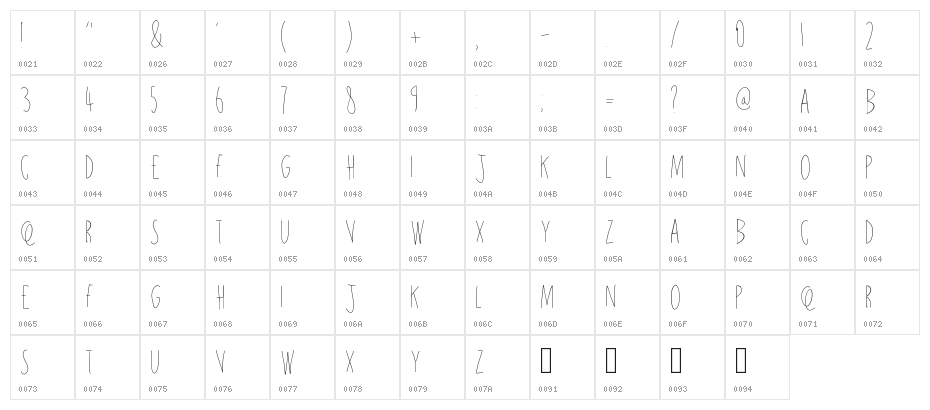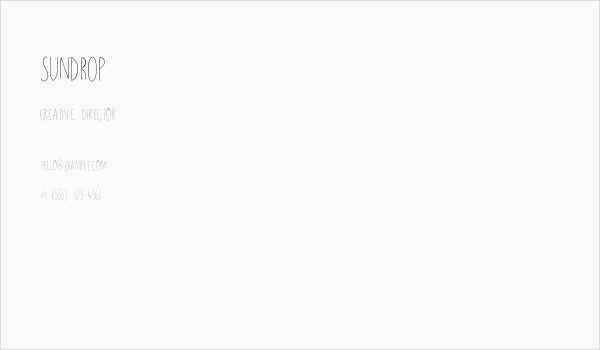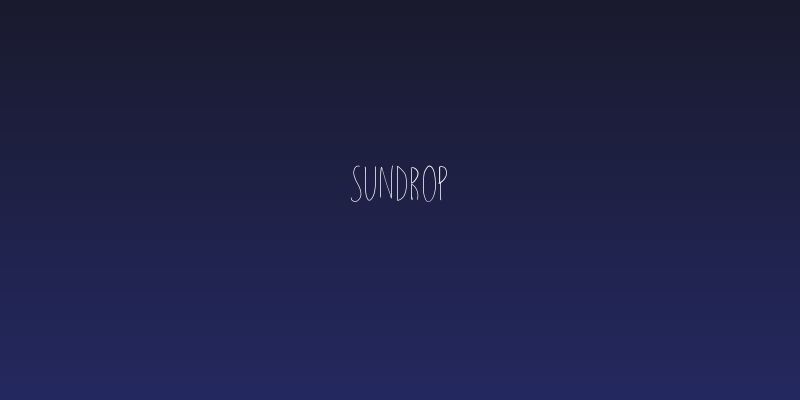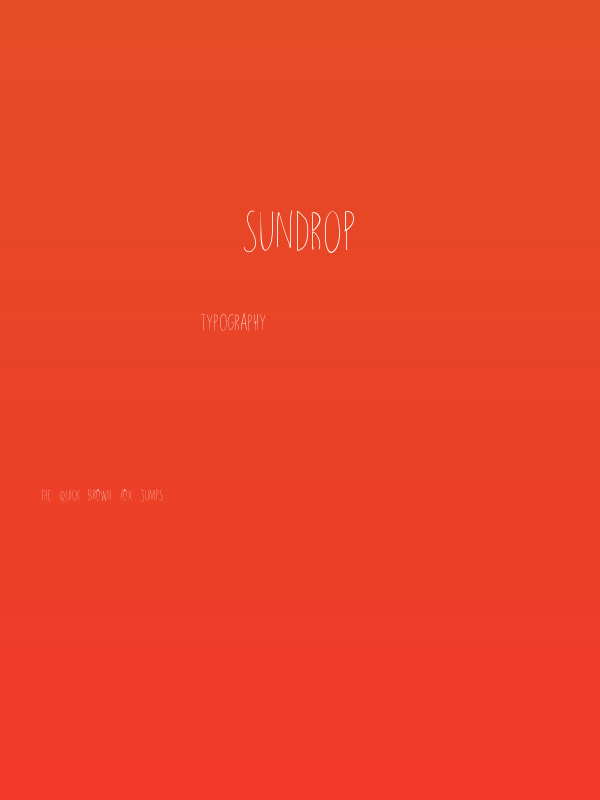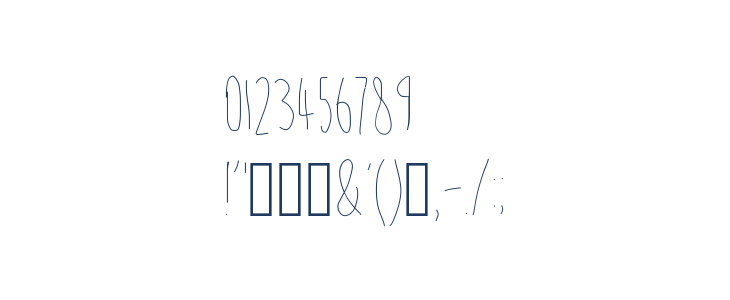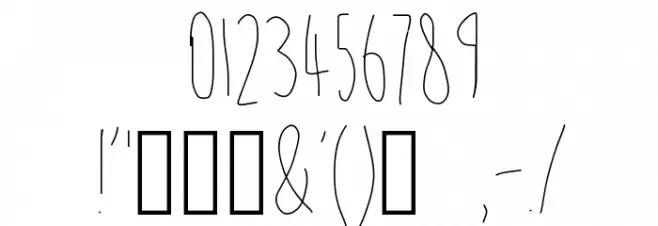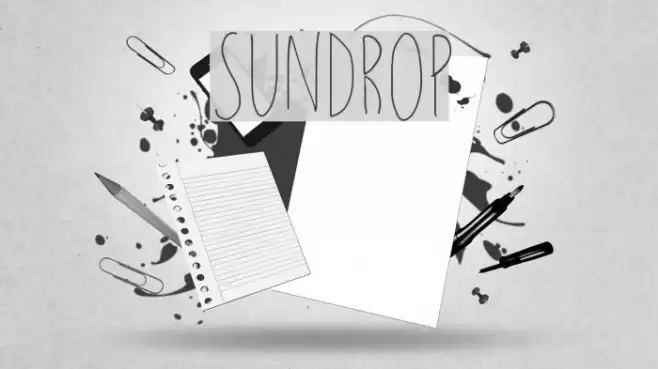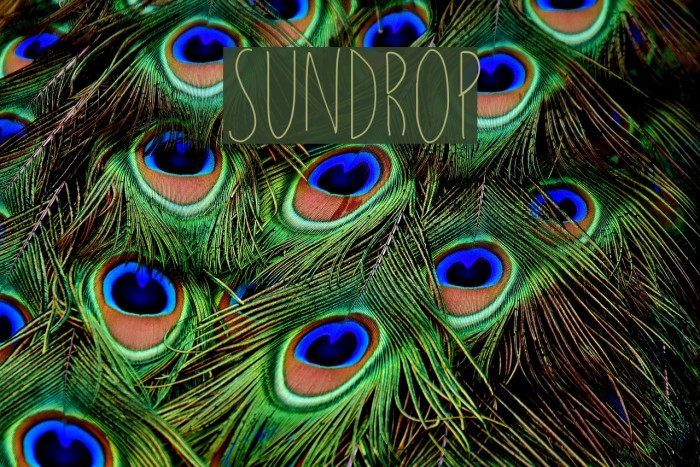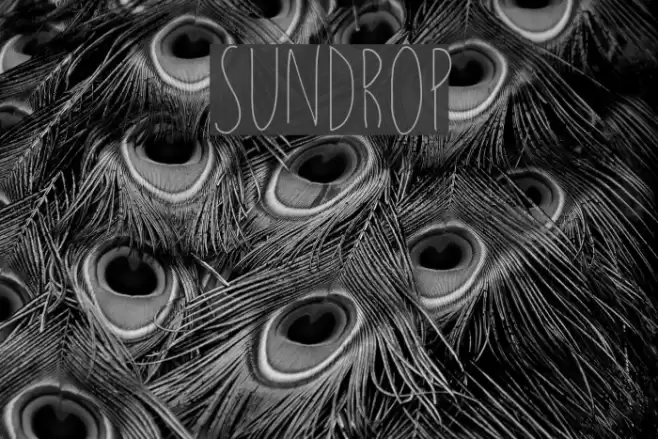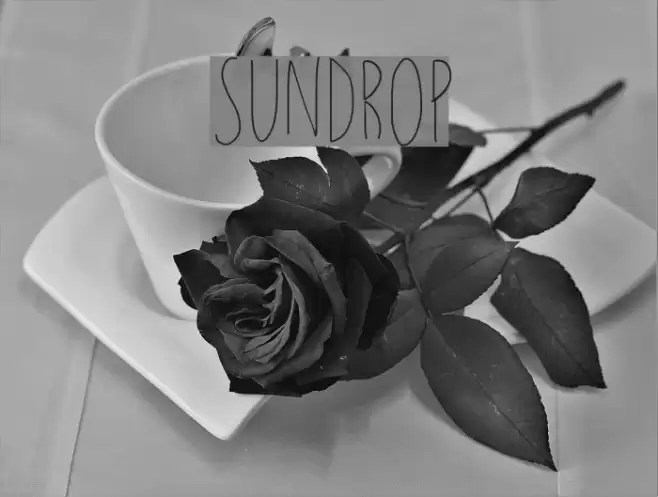
sundrop Font
sundrop Description
This font features a playful and whimsical design, characterized by its tall, narrow letters with a hand-drawn appearance. The strokes are thin and slightly irregular, giving it a casual and informal feel. The uppercase and lowercase letters maintain a consistent style, with rounded edges and a slight tilt, adding to its charm. Numbers and special characters are designed to match the overall aesthetic, ensuring a cohesive look across all text elements. This font is ideal for projects that require a touch of personality and creativity.
| Proposed Projects | Ideal for children's books, greeting cards, playful branding, and creative invitations. |